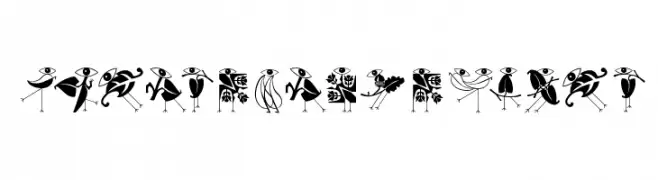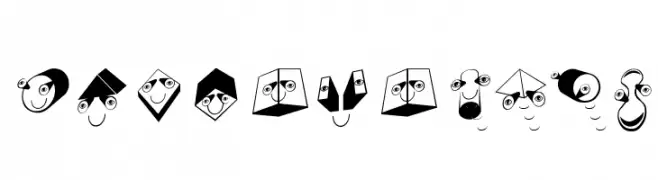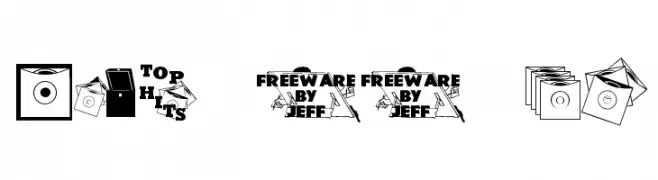
Abstract spiral designs, not a valid font.
A collection of whimsical bird illustrations with abstract and playful designs.
A decorative set of music-themed graphics and symbols.
A collection of artistic symbols inspired by African art, featuring intricate designs and cultural motifs.
The image contains artistic figures, not a valid font.
A collection of whimsical and abstract illustrations, not a traditional font.
The image contains artistic illustrations, not a valid font.
A series of whimsical stick figure illustrations with varied facial expressions.
A collection of decorative symbols and emblems with intricate details.
Abstract shapes resembling faces, not a valid font.